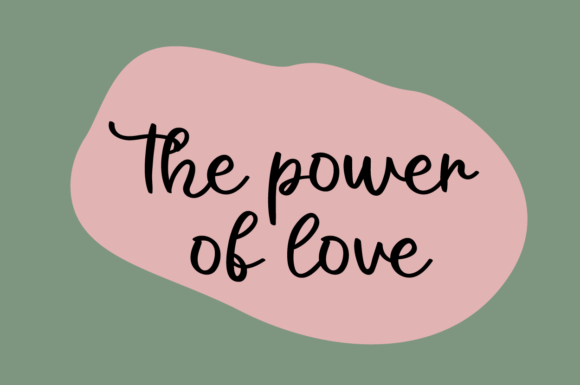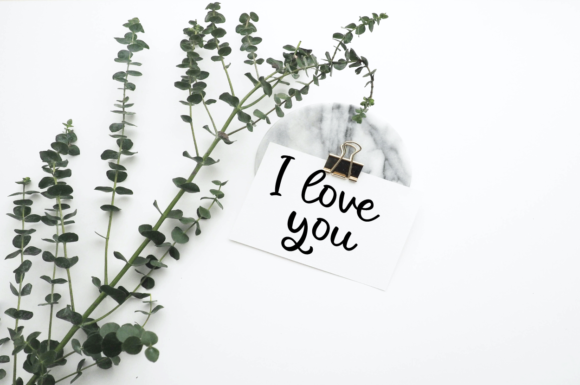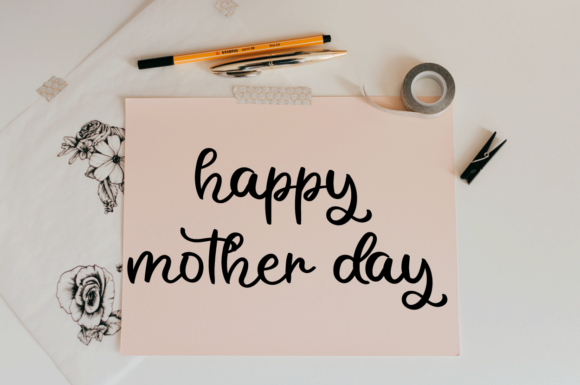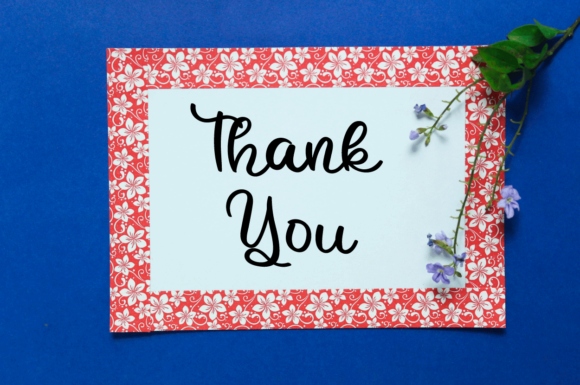
Introducing Girl and Boy Font: The Perfect Handwritten Font for Your Designs
Are you a designer or crafter looking for a unique and elegant handwritten font to add a personal touch to your designs? Look no further than Girl and Boy Font! This beautiful font is perfect for a variety of designs, including wedding invitations, thank you cards, weddings, greeting cards, logos, and more.
What Makes Girl and Boy Font So Special?
Girl and Boy Font is a one-of-a-kind handwritten font that exudes elegance and sophistication. Its unique and flowing script makes it perfect for designs that require a personal and romantic touch. The font is carefully crafted to ensure that it looks beautiful on a variety of designs, from formal wedding invitations to casual greeting cards.
Wedding invitations, save-the-date cards, and wedding programs are just a few examples of where Girl and Boy Font can be used to create stunning designs. The font’s elegant and sophisticated style makes it perfect for formal events, while its playful and whimsical feel makes it suitable for more casual gatherings.
Ideal for Crafters and Small Business Owners
As a crafter or small business owner, you know how important it is to have a unique and recognizable brand. Girl and Boy Font can help you achieve this with its distinctive and eye-catching style. Use it to create beautiful packaging, labels, and marketing materials that will set you apart from the competition.
Key Features of Girl and Boy Font
- Unique and elegant handwritten script
- Perfect for wedding invitations, thank you cards, weddings, greeting cards, logos, and more
- Carefully crafted to ensure beautiful results on a variety of designs
- Scalable to fit any design
Tips and Inspiration for Using Girl and Boy Font
- Pair Girl and Boy Font with a simple background or texture to make it stand out
- Use it in combination with other fonts to create a unique and layered look
- Experiment with different colors and metallic effects to add a touch of luxury
- Use it to create beautiful and personalized stationery, such as notecards and journals
Girl and Boy Font is a unique and elegant handwritten font that is perfect for designers and crafters looking to add a personal touch to their designs. With its flowing script and sophisticated style, it’s ideal for wedding invitations, thank you cards, weddings, greeting cards, logos, and more. Download Girl and Boy Font today and start creating beautiful and memorable designs!
Whether you’re a seasoned designer or a crafty DIY enthusiast, Girl and Boy Font is sure to inspire your creativity and help you create stunning designs that will leave a lasting impression.